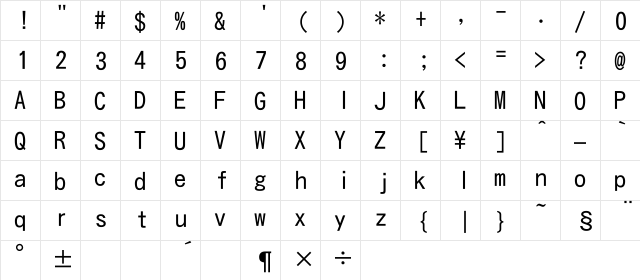
MotoyaLCedar W3 mono
Design Context for MotoyaLCedar Typeface
MotoyaLCedar uses fixed-width spacing throughout, giving it the structured, systematic character associated with coding environments and technical documentation.
Pro Tip: Use MotoyaLCedar with slightly increased line-height for extended reading — fixed-width spacing can feel dense in longer passages without extra breathing room.